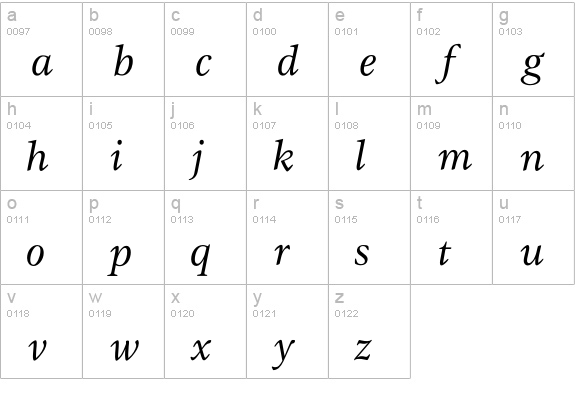
GammaBookItalic Font Details
GammaBookItalic is a stylish and elegant font that exudes sophistication and class. Its italicized design adds a touch of flair and grace to any project, making it perfect for creating eye-catching headlines, promotional materials, or even personal stationery. This font features a unique combination of sharp edges and smooth curves, creating a harmonious balance between modernity and traditional elegance. Each letter is meticulously crafted, ensuring flawless legibility and a polished appearance. One of the standout features of GammaBookItalic is that it is available for free download at FontsMarket.com. This means that designers, artists, and enthusiasts alike can easily access and use this stunning font without any cost. Whether you are a seasoned professional or just starting your creative journey, GammaBookItalic is a valuable addition to your font library. With its versatility and striking aesthetics, GammaBookItalic is suitable for a wide range of design projects. From advertising campaigns to wedding invitations, this font adds a touch of sophistication and refinement to any piece of work. Its timeless appeal ensures that it will remain a staple in your font collection for years to come. So why wait? Enhance your design projects with the elegance and charm of GammaBookItalic. Download it for free at FontsMarket.com today and let your creativity soar.